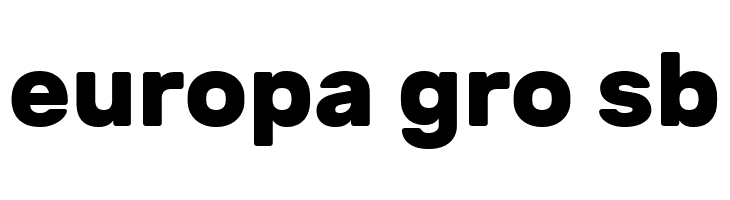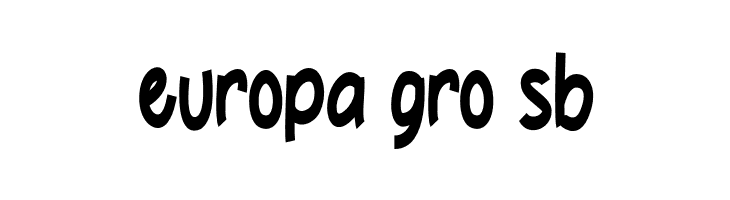
• Coelacanth Pearl Semibold
A classic serif font with semi-bold weight and moderate contrast, ideal for traditional designs.
• Coelacanth Light
A classic serif font with a light, elegant style and refined details.
• Coelacanth Caption Light
A classic serif font with elegant, well-defined characters and subtle serifs.
• Libertinus Sans
A clean and modern sans-serif font with balanced proportions and elegant style.
• Inconsolata LGC Markup
A clean, modern monospaced typeface ideal for coding and technical documentation.
• Galyon Book Italic
A sleek, modern italic font with clean lines and balanced proportions.
• Rubik Bold
A bold, geometric sans-serif font with a modern and clean aesthetic.
• Misterfun
A playful, handwritten font with a whimsical and friendly style.
• Happy Dogy
A playful, bold, and rounded font with a whimsical, handwritten style.
• PizzlatFREE
A bold, playful font with rounded, energetic characters.